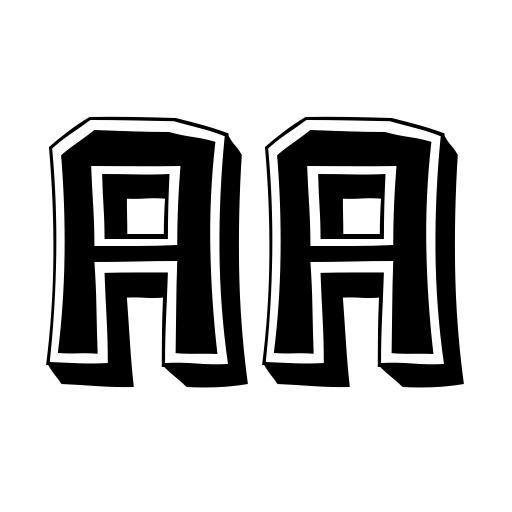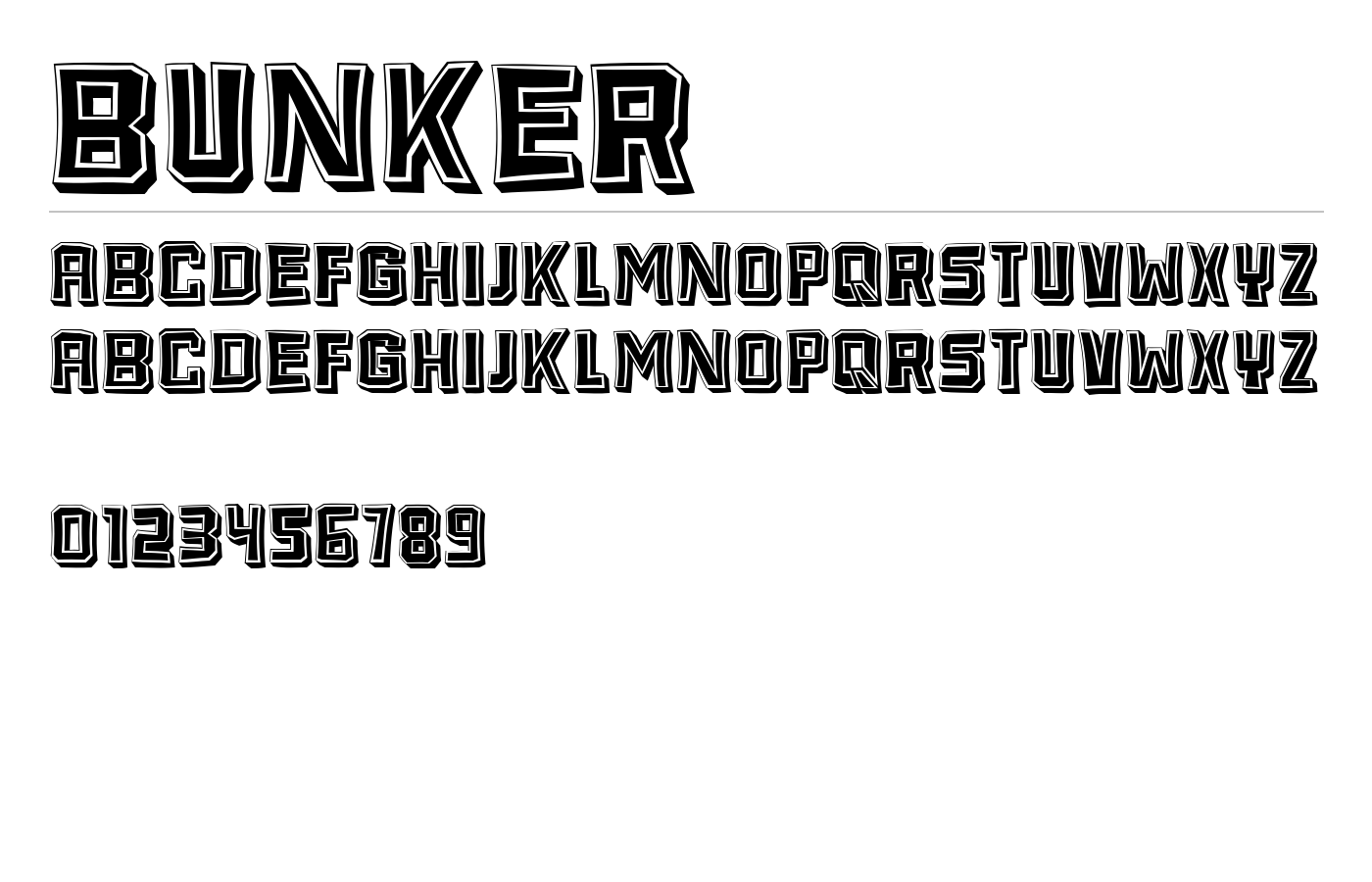
Bunker Font is a bold, all-caps sans serif with a playful, slightly condensed style and strong geometric shapes highlighted by a layered, 3D shadow effect. Its thick weight and sharp angles give it a striking, dynamic presence perfect for eye-catching headlines, posters, branding, and packaging that aim to convey energy and retro charm. This font works best where a bold, fun, and slightly vintage aesthetic is desired to grab attention and make a statement.
Bunker Font
About Bunker Font